Invitation Wording and Typeface - what do you think?
I'm attaching a mockup of our wedding invitation wording in some fonts I liked. What are your opinions?
Both of our parents are contributing to the cost of the wedding, and it will be held in a Catholic church.
Would you suggest putting more of it in script? What do you think of the combination of fonts? (I used Monterey for the script and Champagne & Limosines for the type.)
I can't see the image, but Champagne & Limousines is one of my favorite casual fonts!
Now....any thoughts?
My thoughts:
Remove the bold on the script (I've been told to never ever bold a script font)of your names, and make the font size bigger.
Is your wedding going to be casual or formal? From this invitation it gives off a casual feel.  If you are going for something formal, I would suggest changing the fonts all together.
I like the script font.  But the other font makes it look too casual, which I don't think goes too well with a formal Catholic wedding.  I agree that the script shouldn't be bold.
The bold is actually a mistake - I didn't even notice it until it was changed to a jpeg to post here. Thanks for pointing it out!
It is indeed a catholic wedding, but we are still going for a pretty casual feel overall (outdoor barbeque recetion) I did sort of struggle to find good fonts to go with my script though, so if there are any suggestions out there, I'd love to hear them!
I'm using optimus princeps, I downloaded it from dafont.com for free and I love it.  It gives my invites more of a formal feel.  I don't know how well it will go with your script but it doesn't hurt to try.
I used Monterey on my invites and Cochin in all small caps for the text.
Also, I would change it to say "the marriage of their children" "Emily Rose AND Nicholas James", not "to".  Hope this helps!
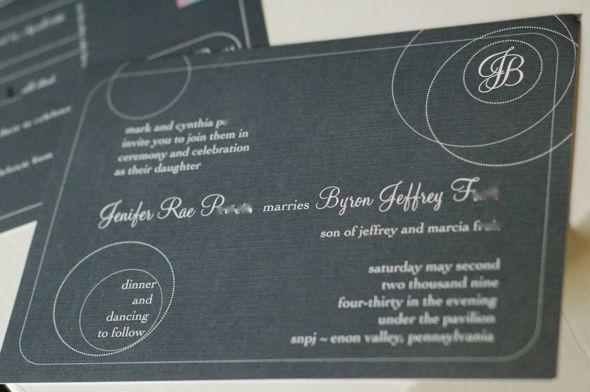
That script and font worked well @ Jenirae!
yep, a serif font will make it less casual but not too formal looking
Agreed JoJo. Adobe Caslon Pro looks much like Cochin, as well.
I like the layout but you should make your names bigger... the font weights are kind of battling it out! But whatever you choose to do, make sure it represents you... and good luck!
I think I would also change the font of "reception to follow" to the non-script font